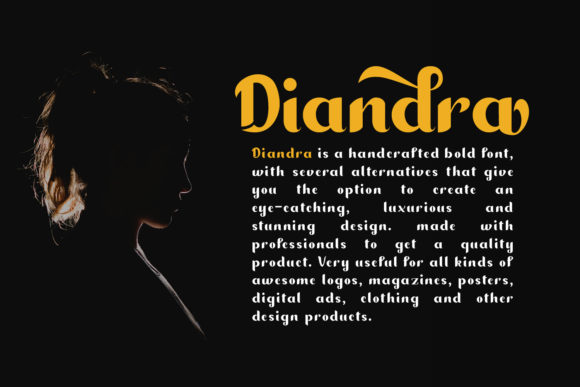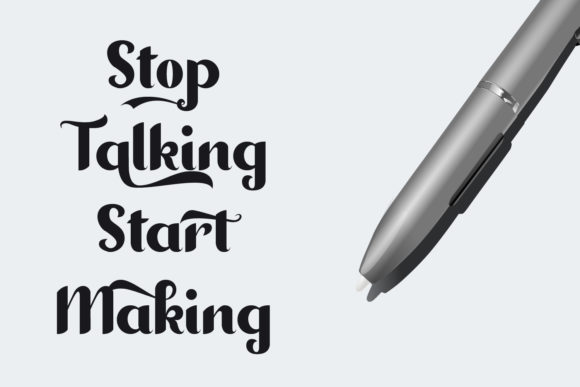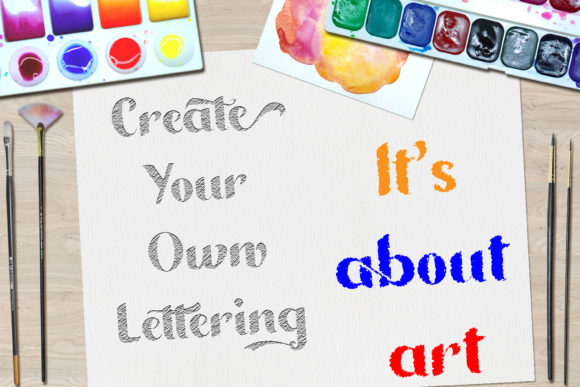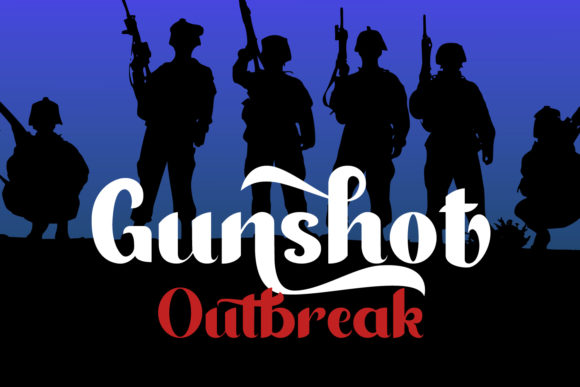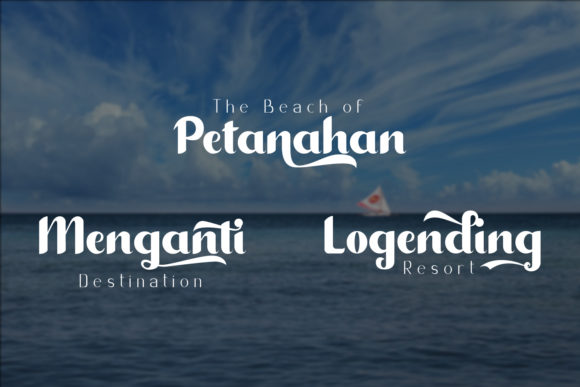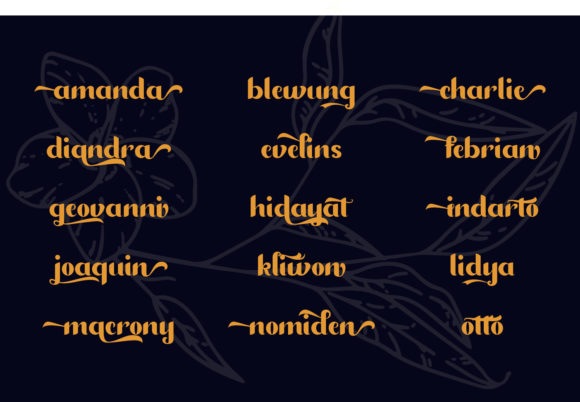
The Designer’s Delight: Getting to Know Diandra Font
Have you ever been in the middle of a design project, and suddenly, you’re stuck on finding the perfect font? I recall a recent experience where I was working on a branding project for a vintage-inspired boutique, and I just couldn’t find a font that captured the essence of nostalgia and boldness. That’s when I stumbled upon Diandra Font, and it completely transformed my design. In this article, we’ll dive into the world of Diandra Font, exploring its features, uses, and everything in between.
A First Impression: What Makes Diandra Font Special
Diandra is a gorgeous and bold handwritten font, crafted to give your headlines and logotype projects a stylish touch. This font reads as strong, confident, and dynamic and can add tons of nostalgic character to your designs. One of the standout features of Diandra Font is that it’s PUA encoded, which means you can access all of the glyphs and swashes with ease!
Let’s get down to business – what do I love about Diandra Font, and are there any quirks to be aware of?
- ✨ Unique Character: Diandra Font has a distinct personality that sets it apart from other fonts.
- ✅ Ease of Use: The PUA encoding makes it easy to access glyphs and swashes, even for those who aren’t font experts.
- 💥 Versatility: This font can be used for a wide range of projects, from branding and advertising to packaging and more.
While Diandra Font is an excellent choice, there are a few things to keep in mind:
- 🤔 Legibility at Small Sizes: Like many script fonts, Diandra can be a bit tricky to read at smaller sizes. Make sure to test it out in different contexts to ensure it works for your project.
- ⚠️ Overuse of Swashes: While the swashes in Diandra are beautiful, it’s easy to overdo it. Balance them out with some clean text to avoid overwhelming your design.
The Story Behind Diandra Font: Designer Inspiration
While the true story behind Diandra Font’s creation may be unknown, it’s easy to imagine that the designer was inspired by vintage typography and a passion for bold, expressive lettering. Perhaps the designer was influenced by classic advertising and signage from the 1950s and 60s, which often featured bold, cursive scripts. Whatever the inspiration, Diandra Font is a testament to the power of creative typography.
Q: What is PUA encoding, and how does it benefit Diandra Font?
PUA (Private Use Area) encoding allows font creators to include additional glyphs and characters that aren’t part of the standard Unicode character set. In the case of Diandra Font, PUA encoding provides access to a wide range of swashes and glyphs, making it easier to create unique and creative designs.
Q: Is Diandra Font suitable for body text?
While Diandra Font is stunning, it’s primarily designed for headlines and titles. Its bold, cursive nature can make it challenging to read in large blocks of text. For body text, consider pairing it with a clean, sans-serif font for better legibility.